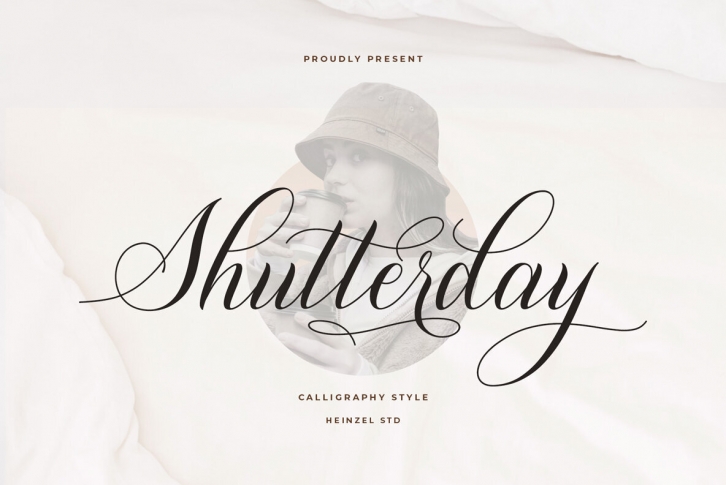
Shutterday is a beautiful and refined script font, featuring a lovely flow. It has a classy, elegant and modern look that can be used for logos, branding, invitations, stationery, wedding designs, social media posts, and much more!